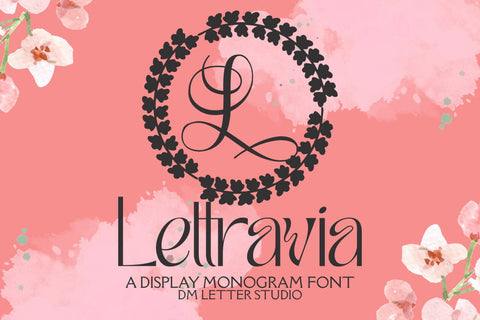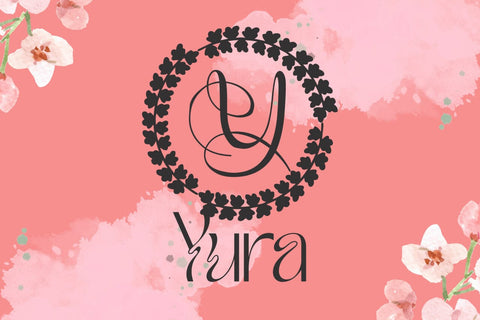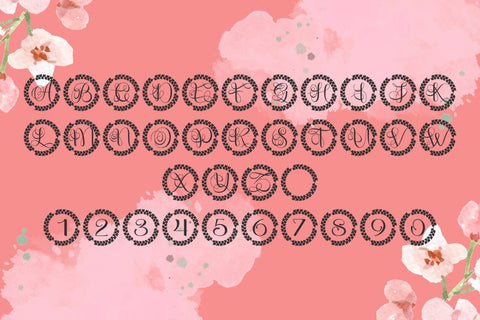
Lettravia Monogram Font
Meet Lettravia, the Monogram Font
Lettravia Monogram Font turns simple initials into refined, boutique-ready emblems. Strokes feel smooth and balanced. Counters stay open, so tiny tags and foil seals read clearly. Use it for wedding suites, boutique logos, keepsake gifts, and premium packaging. Moreover, Lettravia pairs beautifully with modern serifs or a quiet sans, which keeps layouts elegant without extra work.
Where this monogram font shines
Set single, double, or triple initials for logos, seals, menus, and place cards. Then frame them with laurel rings, oval borders, or thin rules to echo the graceful structure. Since proportions favor symmetry, polished compositions come together in minutes. As a result, your thumbnails stand out on crowded marketplaces and listings stay consistent across product lines. Plus, Lettravia scales smoothly from jewelry cards to venue signage.
Fast setup, polished results
Design tips for Lettravia Monogram
Keep initials large and let white space breathe. Pair the headline monogram with a humanist sans or soft serif for supporting text. Meanwhile, add micro shadows, a thin inner stroke, or a delicate frame for depth. Because the forms feel airy, textured paper and metallic accents raise perceived value. However, keep copy short so the monogram remains the hero.
Select stylistic alternates for key letters
Curves tuned for foil, letterpress, engraving, laser, and clean vinyl cutting